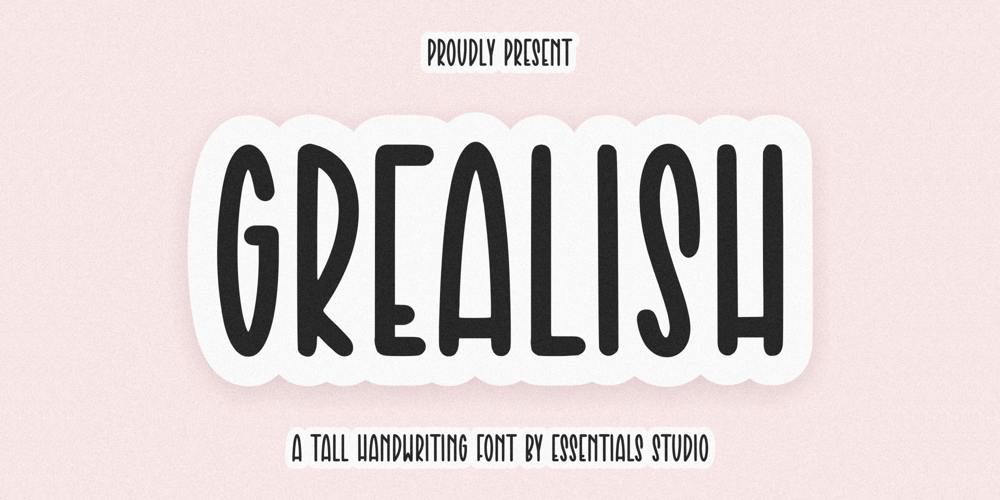
Grealish Font Family was designed by Annas Rifky Anhar and published by Essentials Studio. Grealish contains 1 styles and family package options. Introducing by Essentials StudioProudly Present, FilmgraphGrealis Is a Modern Handbrush FontsGrealis is perfect for product packaging, branding project, megazine, social media, wedding, or just used to express words above the background.Enjoy the font, feel free to comment or feedback, send me PM or email